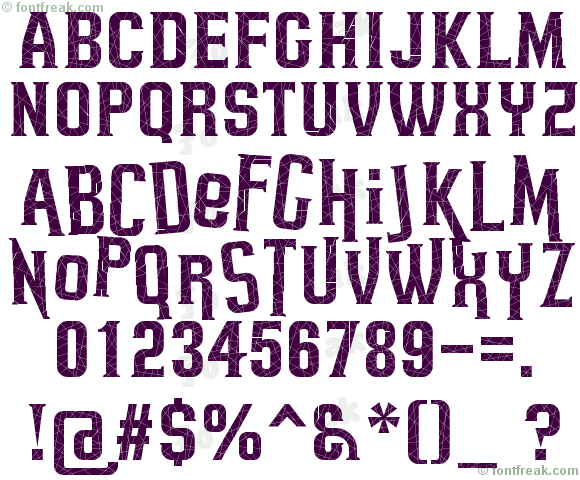
HEADSOME & modif Cut1
HEADSOME & modif
About HEADSOME & modif Cut1
The HEADSOME & modif Cut1 font by Situjuh Nazara is a striking display typeface that captures attention with its unique characteristics. This decorative font features an eclectic mix of bold strokes and playful irregularities, creating a dynamic visual experience. The varying stroke weights and deliberate contrast lend a sense of energy to the type, while the spacing between characters is carefully crafted to maintain readability without sacrificing style. The design includes whimsical elements that set it apart, making it ideal for creative projects that require a standout typeface.
This font is perfect for a variety of use cases. Its bold and distinctive appearance makes it an excellent choice for wedding invitations, where couples want to convey a sense of individuality and flair. Additionally, it's well-suited for movie posters, as the font's dramatic presence can effectively draw in audiences. Restaurant menus can also benefit from this typeface, adding a touch of creativity to the dining experience. Furthermore, small business owners looking to establish a unique brand identity will find HEADSOME & modif Cut1 to be an effective tool in their design arsenal. Content creators seeking to enhance their projects with a quirky, memorable font will also appreciate its versatility.
Ultimately, what sets HEADSOME & modif Cut1 apart is its ability to combine fun and functionality. Its distinctive style not only captures attention but also adds a layer of personality to any design project, making it a valuable addition to any typographic library.